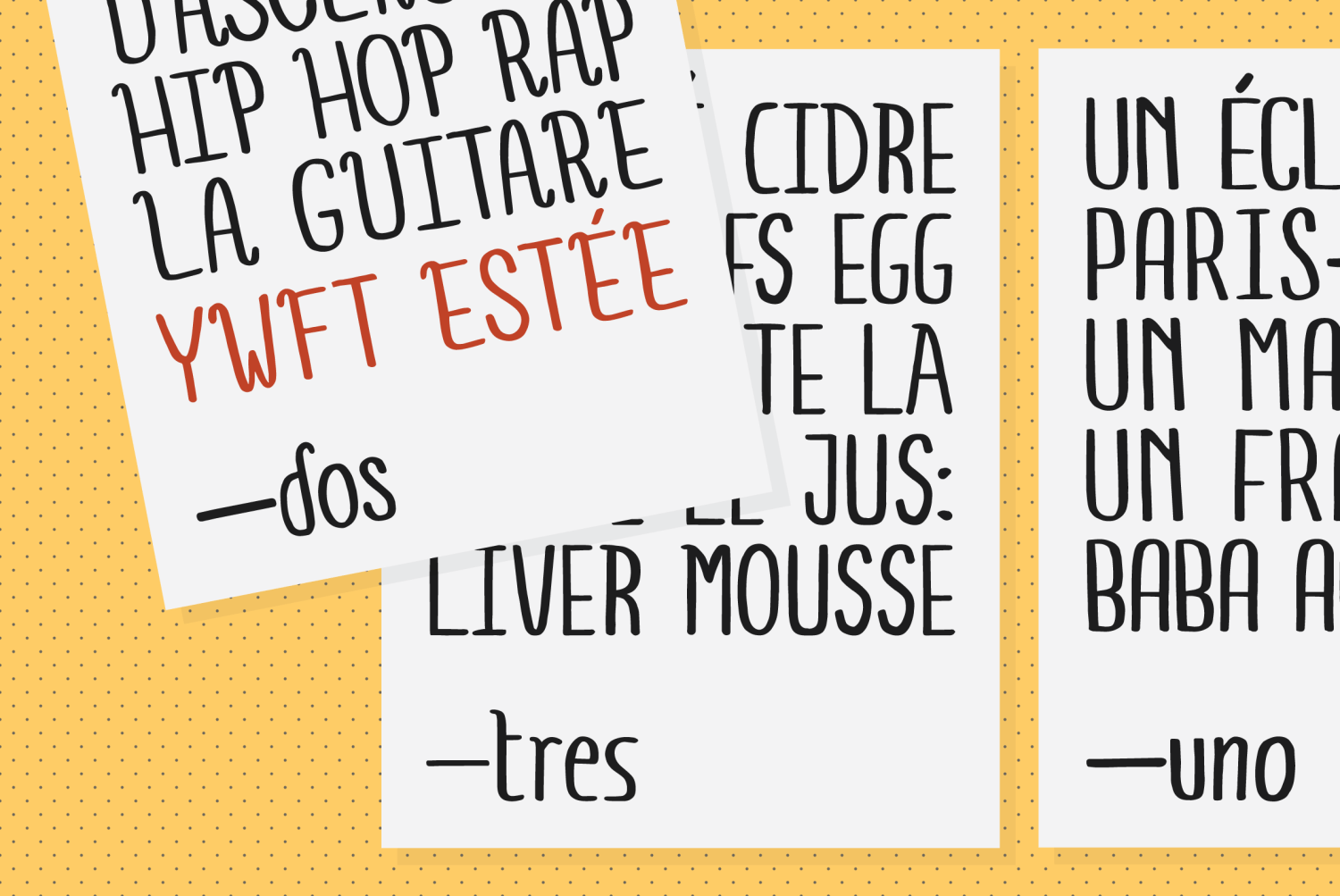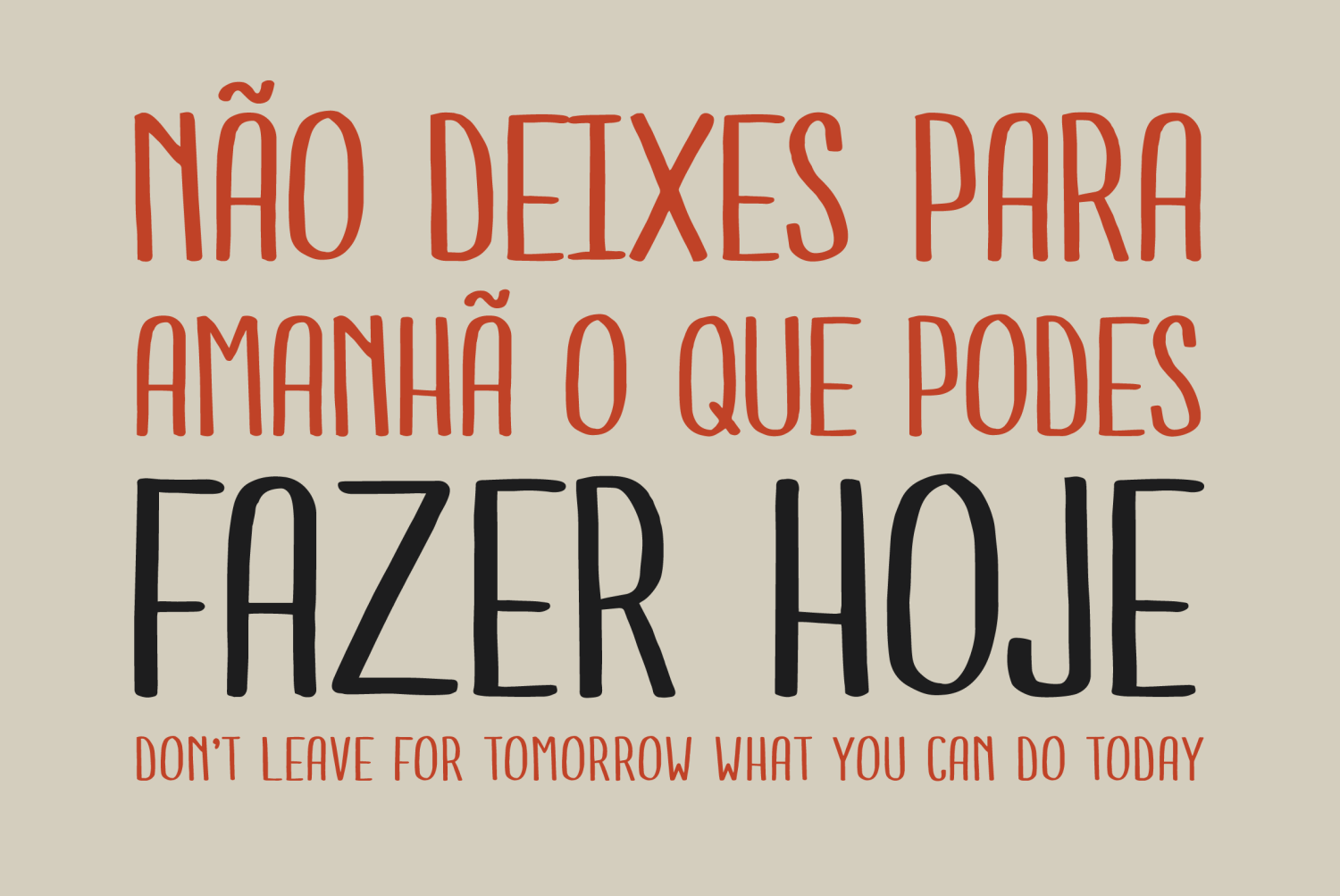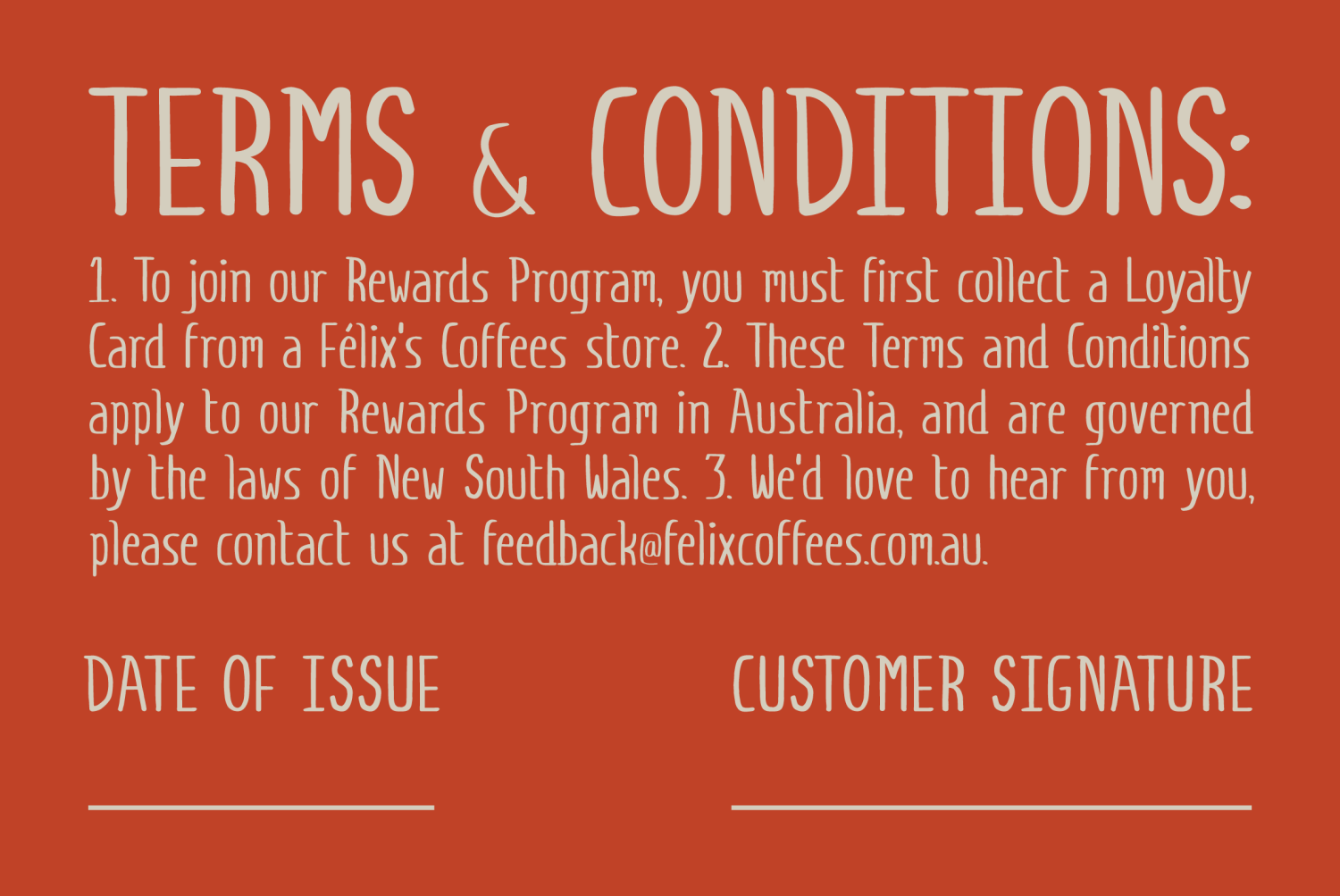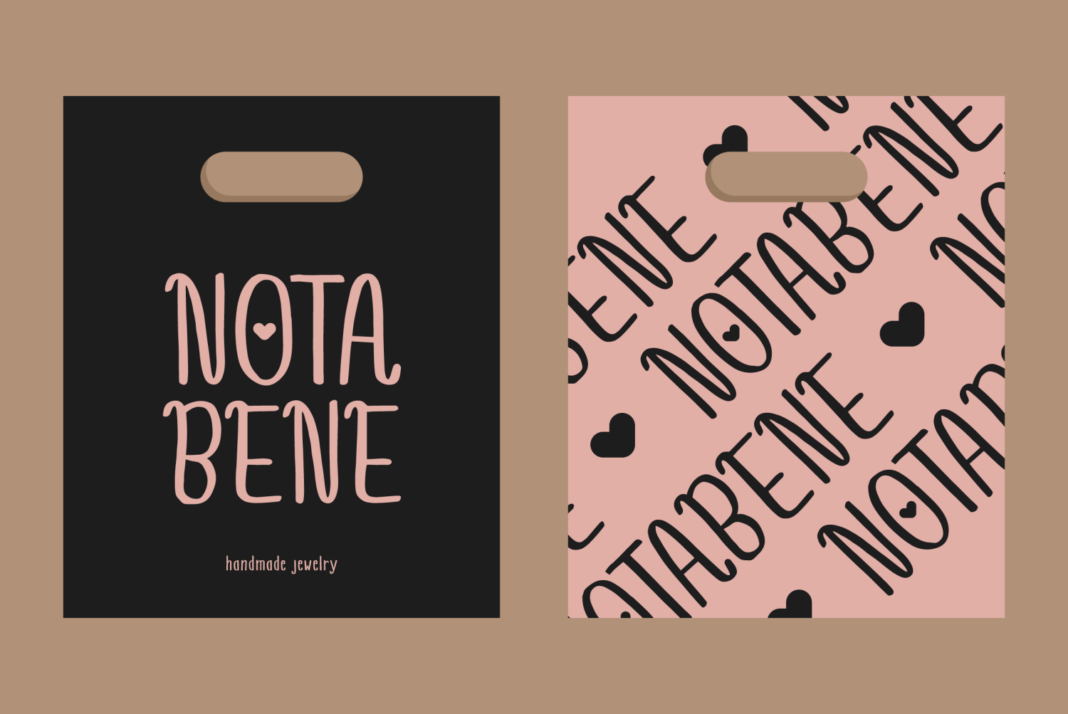
Inspired by the beauty industry, YouWorkForThem presents Estee, an homage to modern femininity. Sweet details combined with strong architecture, YWFT Estee takes an organic, shabby chic approach to its design. Estee evokes the qualities we most admire…